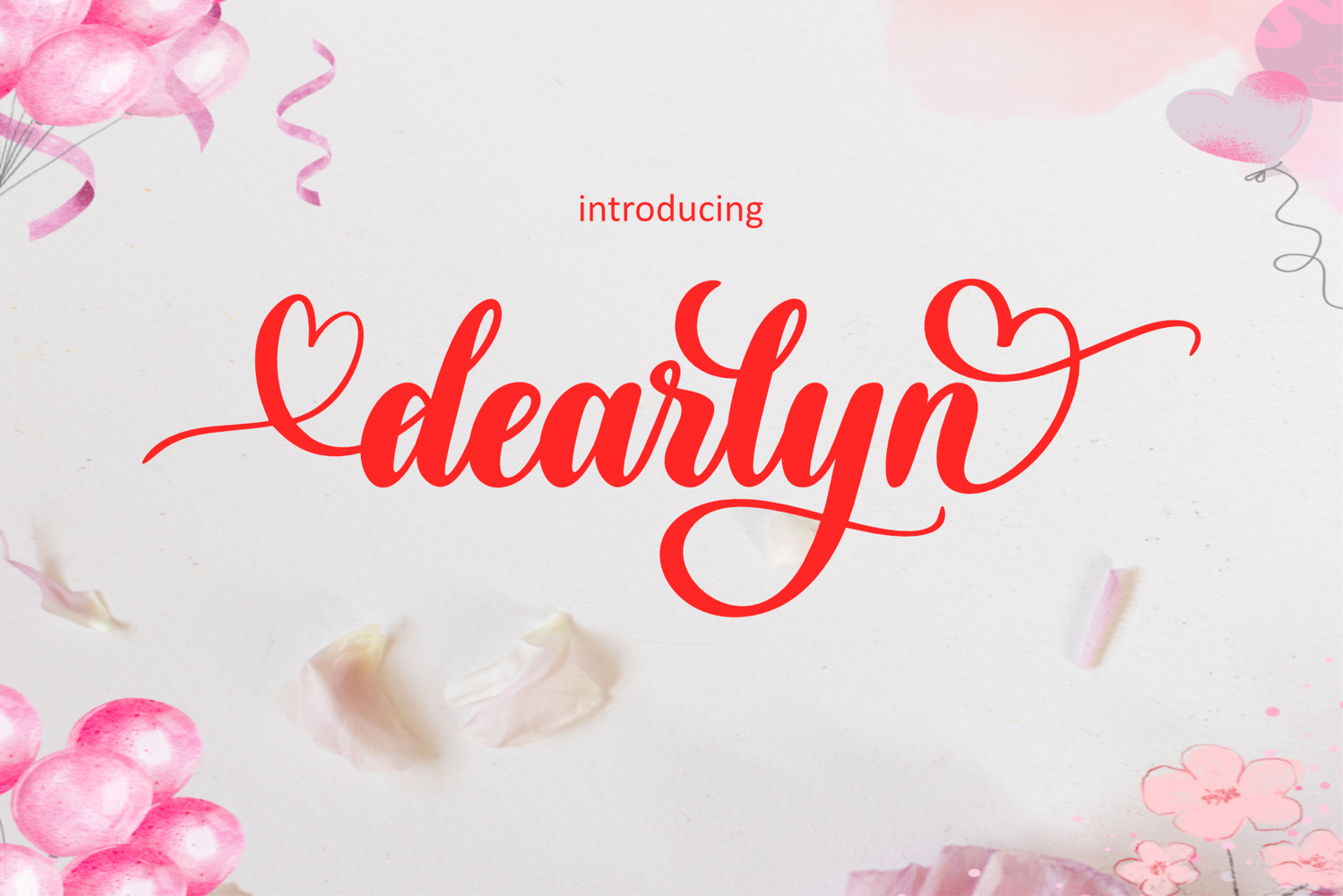
dearlyn
Dearlyn is a graceful and charming handwritten script font designed to bring sweetness and warmth to any creative project. The preview showcases its flowing letterforms in bright red, beautifully enhanced with heart-shaped swashes on both sides—perfect for themes of love, celebration, and joy.
Set against a soft, festive background with balloons, petals, and pastel decorations, the design highlights Dearlyn’s playful elegance. Its smooth curves and modern calligraphy style make it ideal for wedding invitations, Valentine cards, branding, love quotes, greeting cards, packaging, and decorative typography.
Let Dearlyn add a touch of romance and delight to your work. ❤️✨